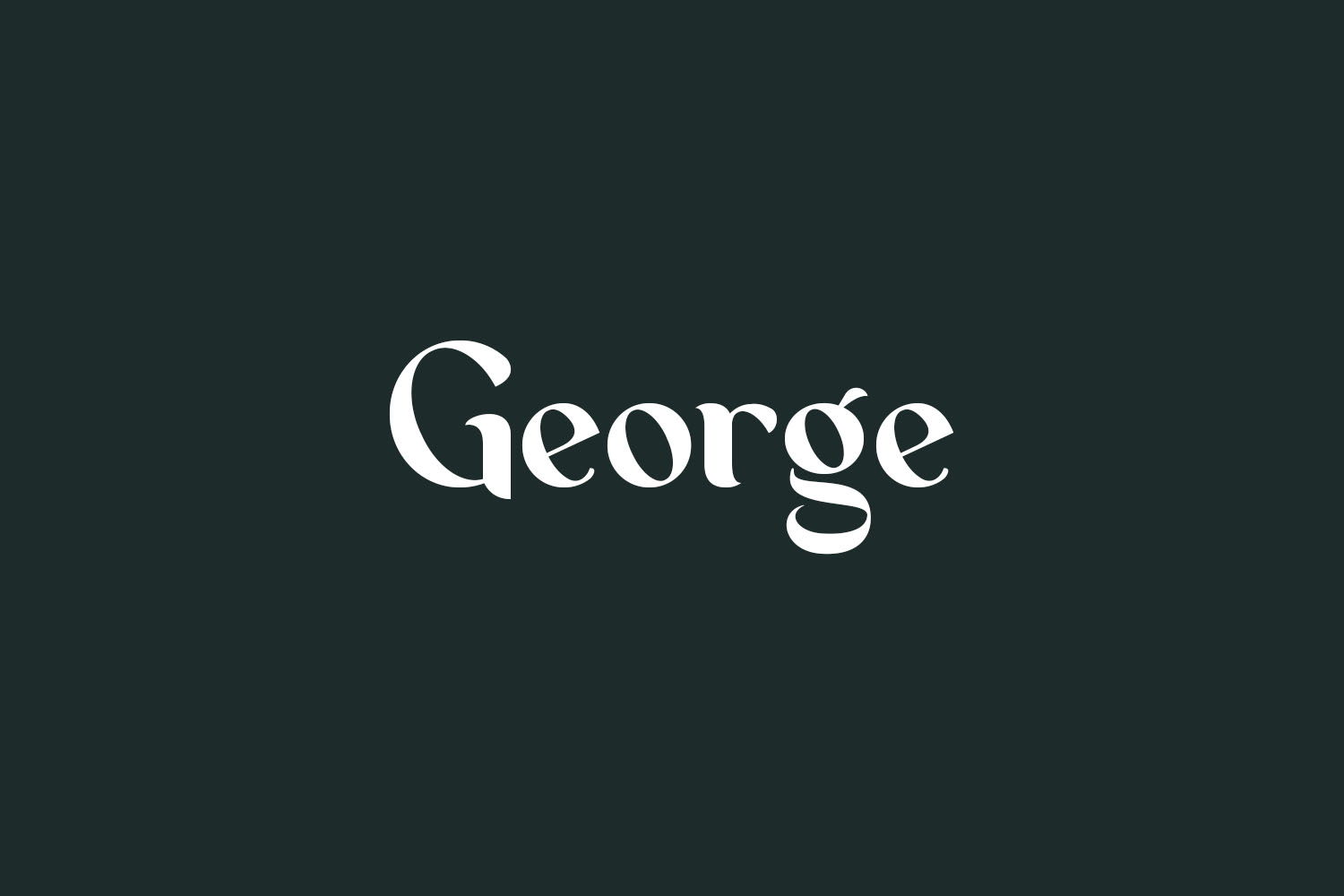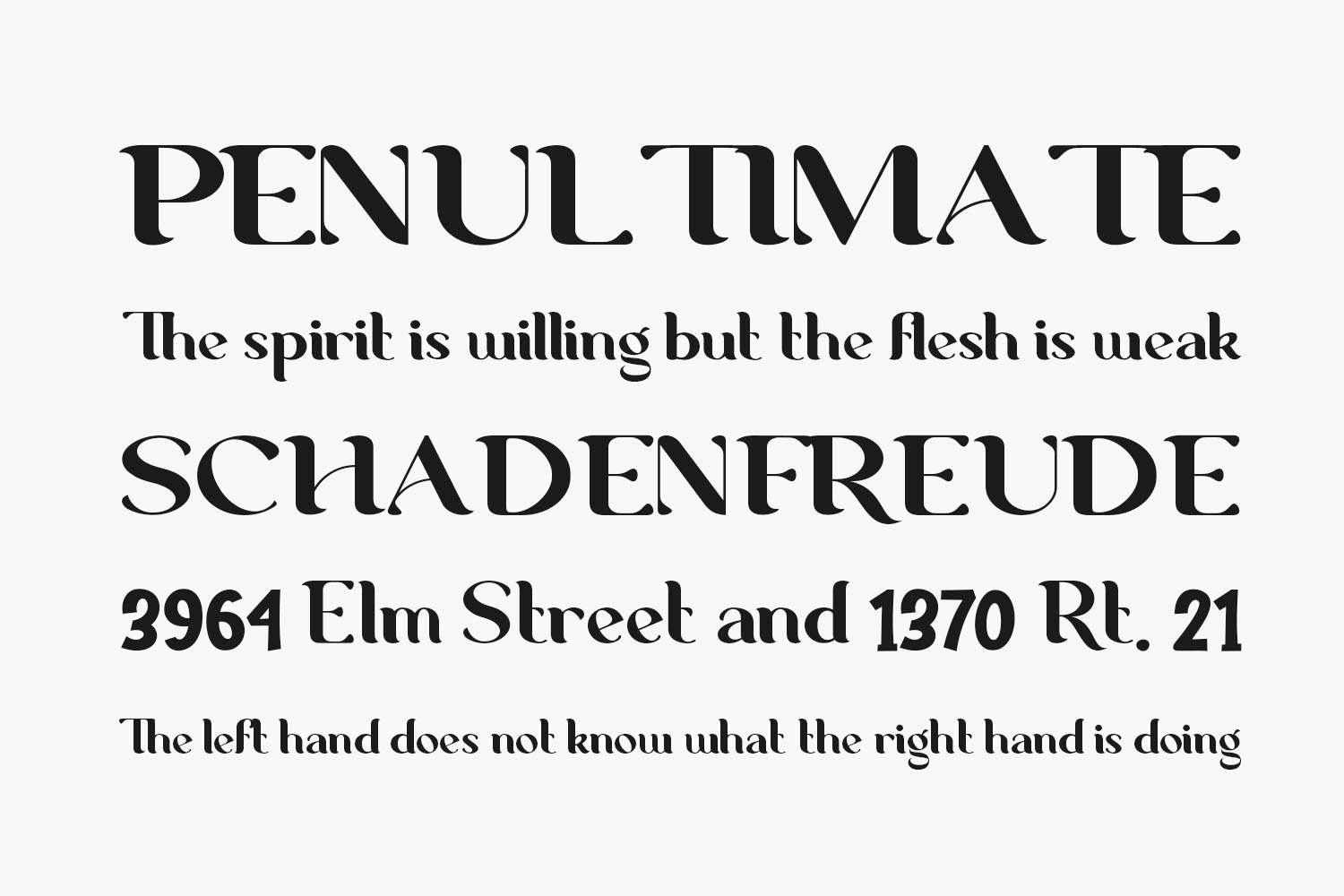
George Free Font is a classic serif typeface with a unique character. Fall in love with its peaceful charm. George Free Font was designed by Dharmas Studio is a demo and free for personal use only. Please purchase the full version for commercial use.